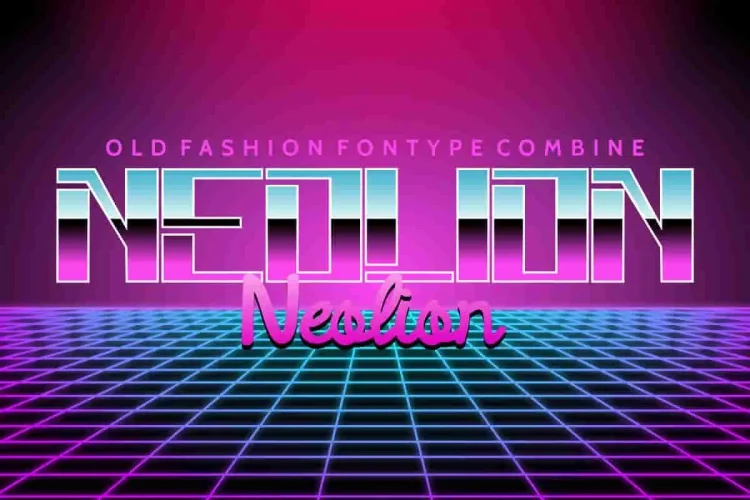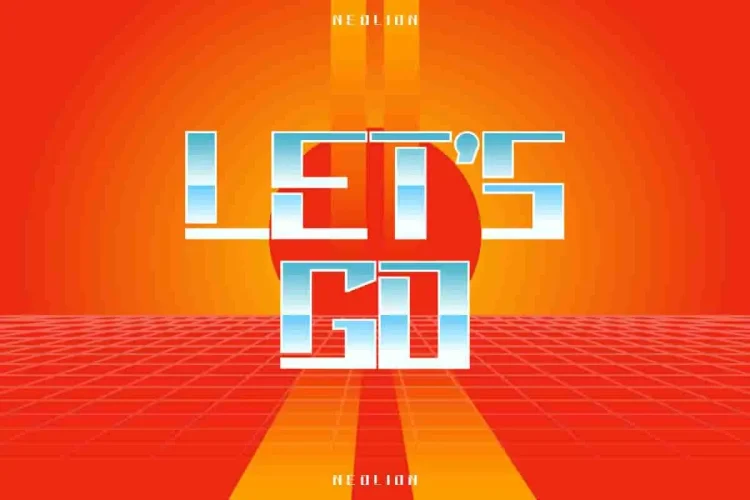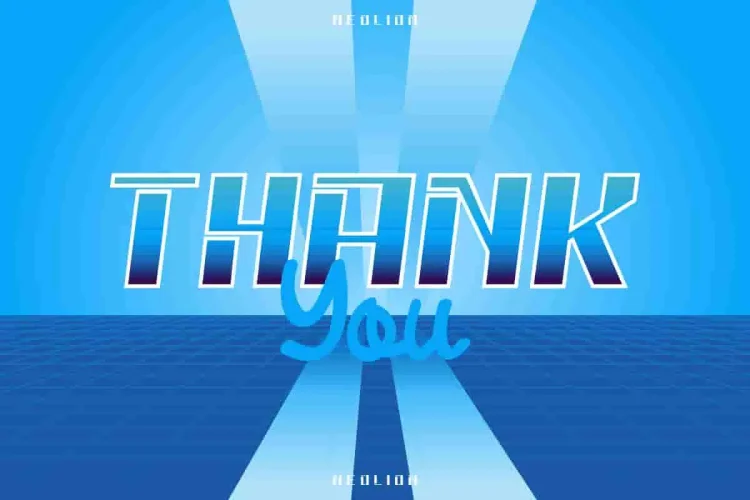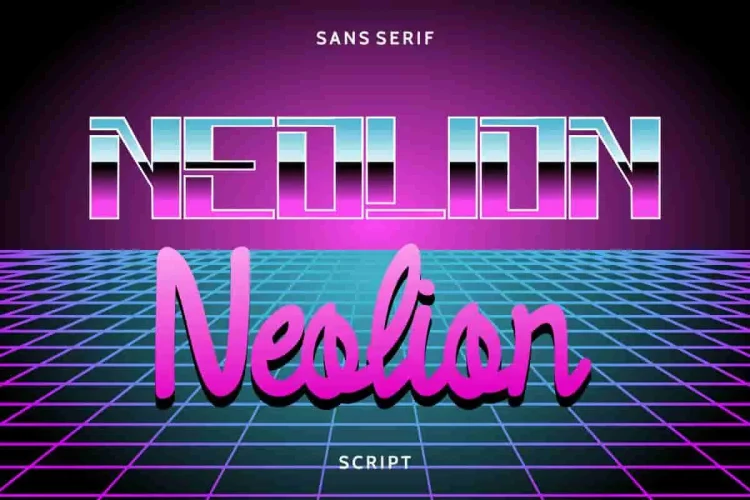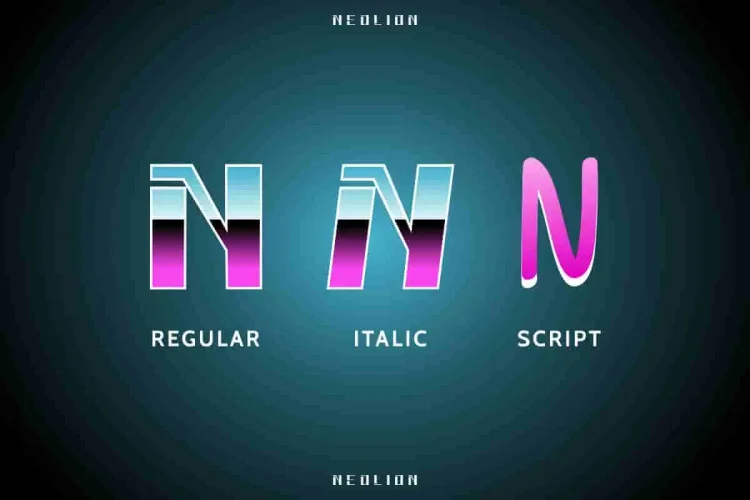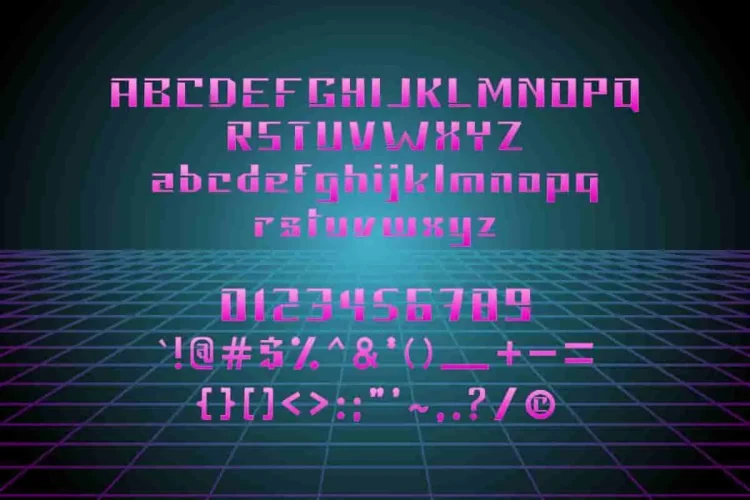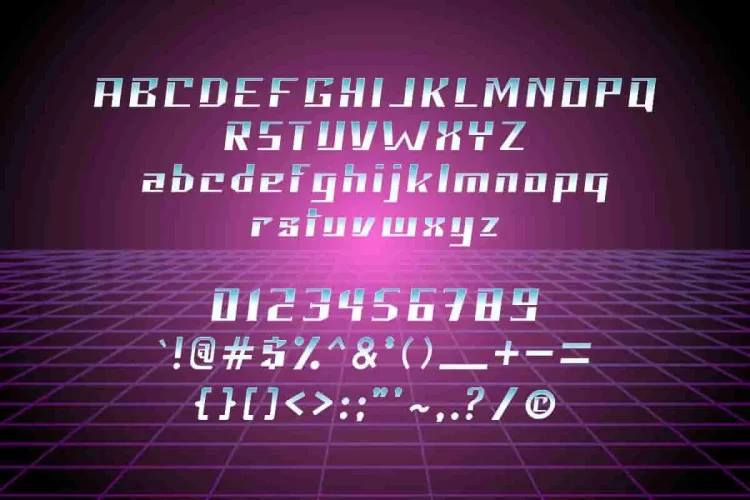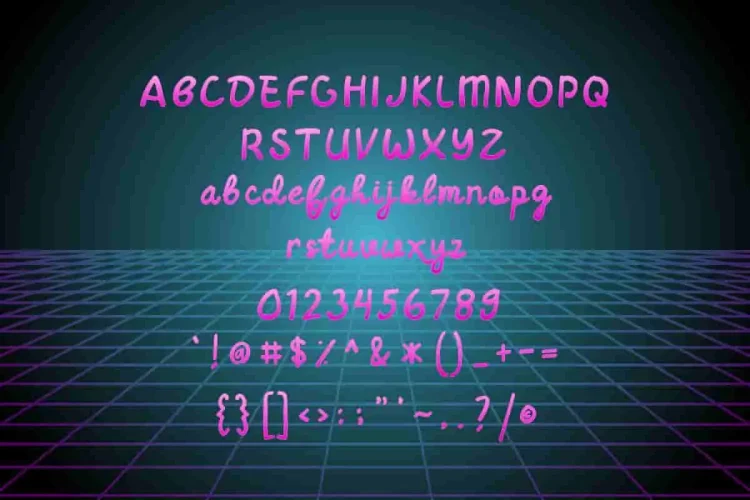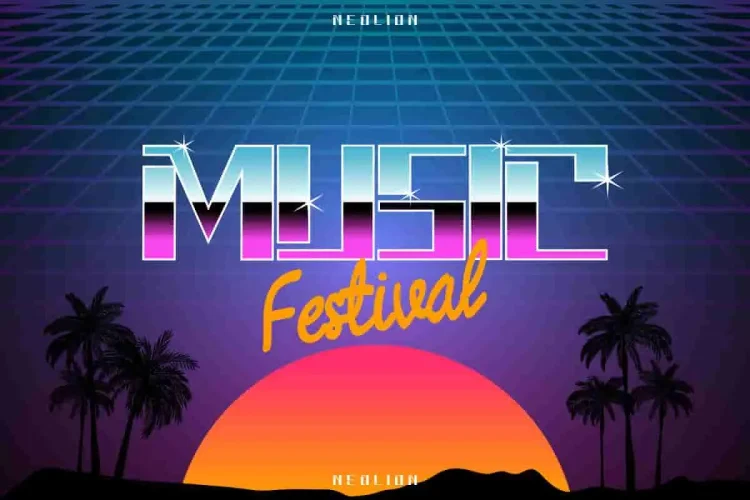
Neolion Retro Style Font Duo
Introducing: Neolion – Retro Style Font Duo!
Please meet our newest font : Neolion! This is a DUO FONT with modern yet retro style sans serif  PLUS calligraphy pen writing script. Whether you’re working on branding, posters, album covers, or web visuals, Neolion delivers high impact with a nostalgic yet modern twist.
✨ What Makes Neolion Stand Out?
• 🌀 True Retro Meets Future Aesthetic – Inspired by synthwave, vaporwave, and cyberpunk design trends
• 💡 Dynamic Font Duo – Combine structured power with soft flair
• 🌍 Multilingual Support – Use it confidently for global projects
🔤 Two Complementary Styles for Maximum Creativity
1. Neolion Sans – Retro Block Sans Serif
This version is a futuristic take on 80s grid-style typography, featuring sharp lines, clean cuts, and a dramatic vertical gradient. Its structured design and bold shapes make it ideal for headlines, logos, posters, gaming content, and tech-based branding.
• Style: Modern-retro
• Features: Bold, geometric, tech-inspired
• Use for: Titles, merchandise, signage, music branding, digital flyers
2. Neolion Script – Smooth Neon Calligraphy
A playful, stylish calligraphy type that mimics neon handwriting strokes. The vibrant pink gradients and rounded script curves bring warmth and softness to balance the angular sans serif.
• Style: Handwritten script with neon vibes
• Features: Fluid, elegant strokes, pen-like flow
• Use for: Signatures, quotes, product packaging, fashion labels, social media